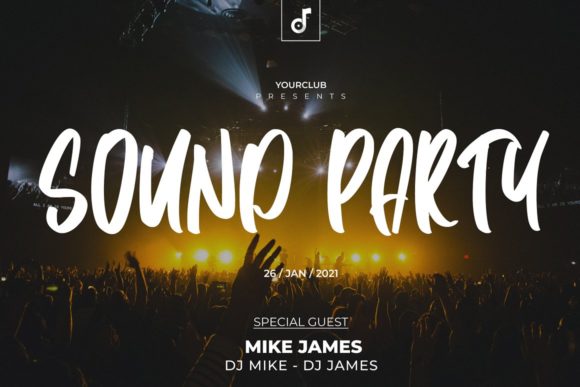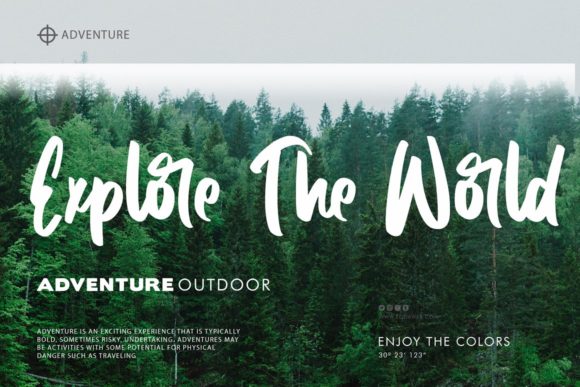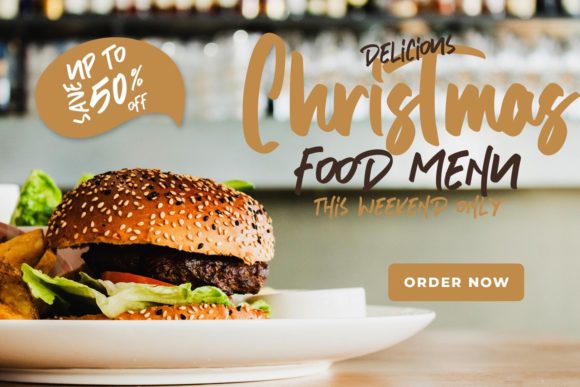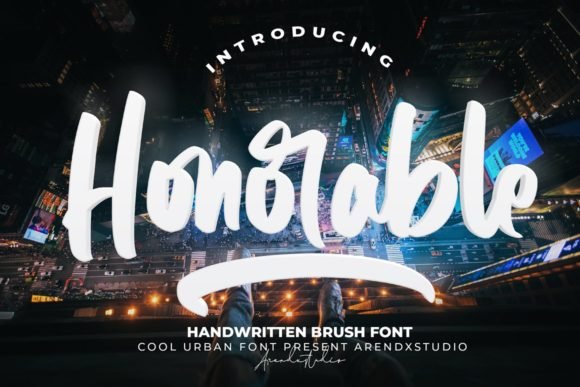
Introduction to Honorable Font
Honorable is a fun and bouncy handwritten font.
It’s playfulness make it great for creative projects, be it inspirational wall posters or for communicating your brand .
Honorable Font offers exceptional quality and versatility, making it a valuable addition to your design toolkit. Whether you’re creating for personal projects or commercial use, Honorable Font delivers professional results.